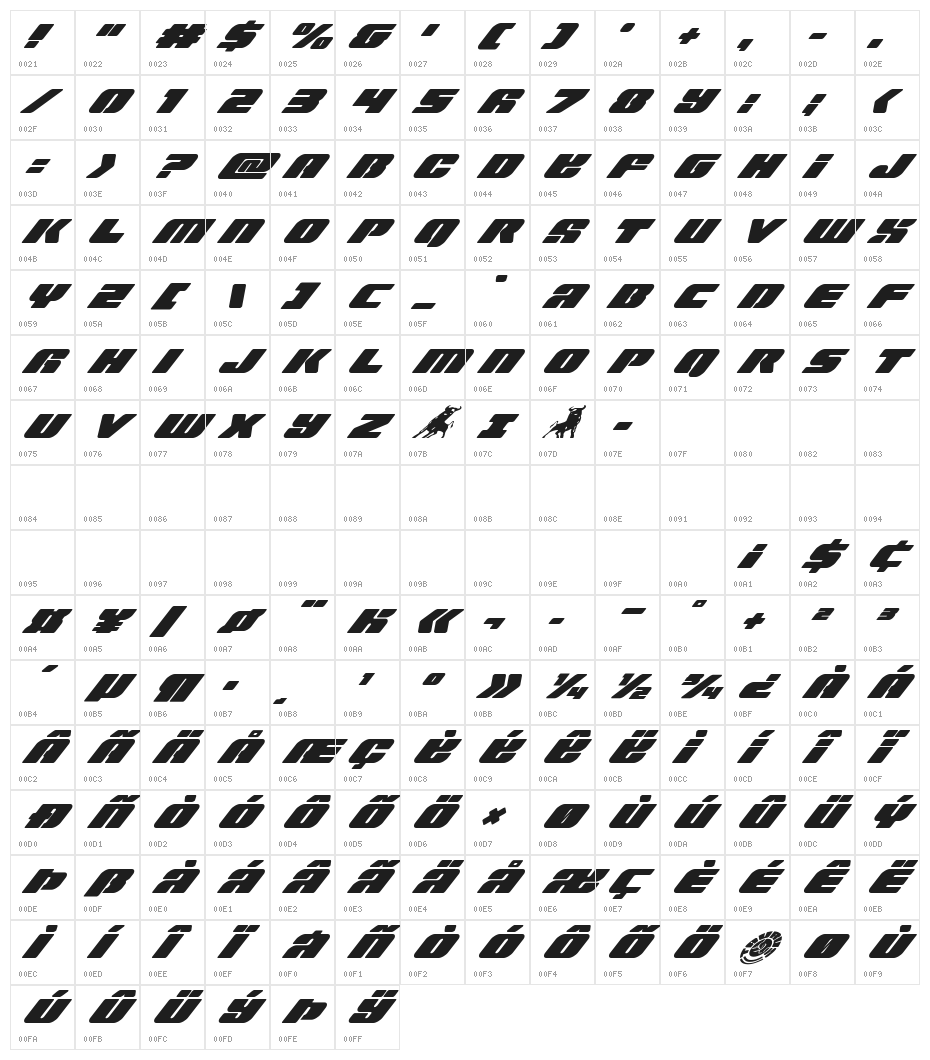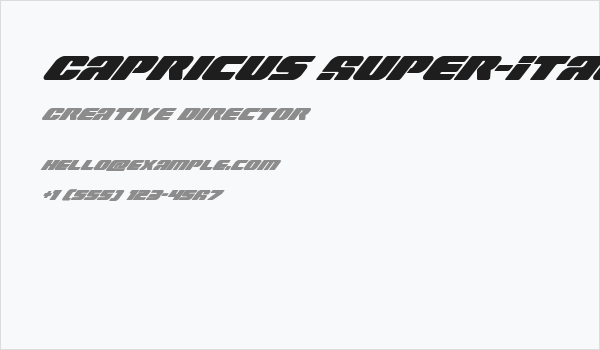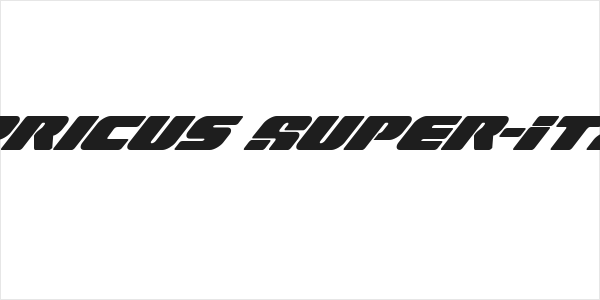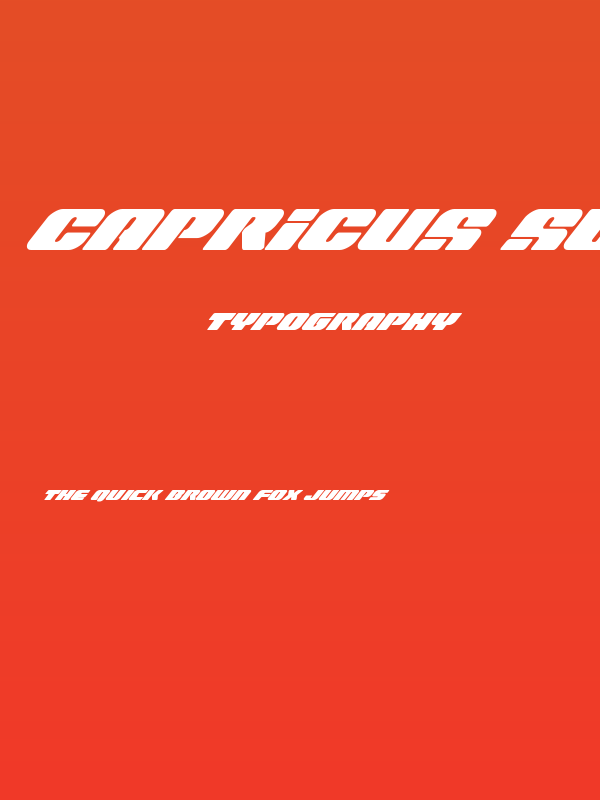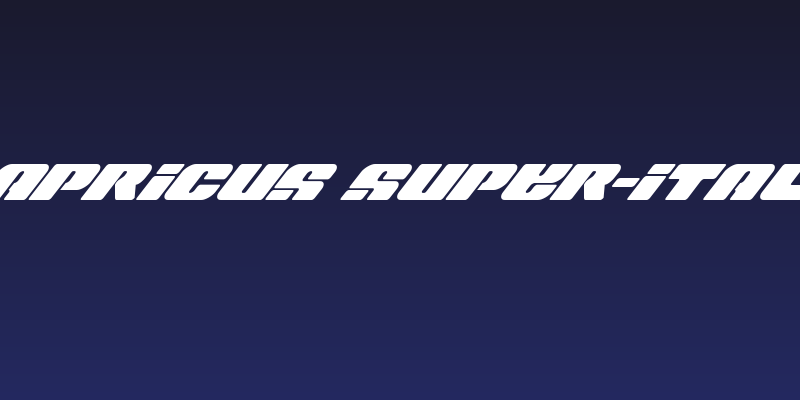
Capricus Super-Italic Font
Capricus Super-Italic Description
This font features a bold, italicized style with a strong, dynamic presence. The characters are slanted, giving a sense of motion and energy. The strokes are thick and consistent, contributing to a robust and impactful appearance. The design is modern and sleek, with sharp angles and a futuristic vibe. The uppercase and lowercase letters maintain a cohesive look, while the numerals and special characters are designed to match the overall aesthetic. This font is ideal for projects that require a bold statement and a contemporary feel.
| Proposed Projects | Ideal for sports branding, automotive designs, tech logos, and dynamic posters. |